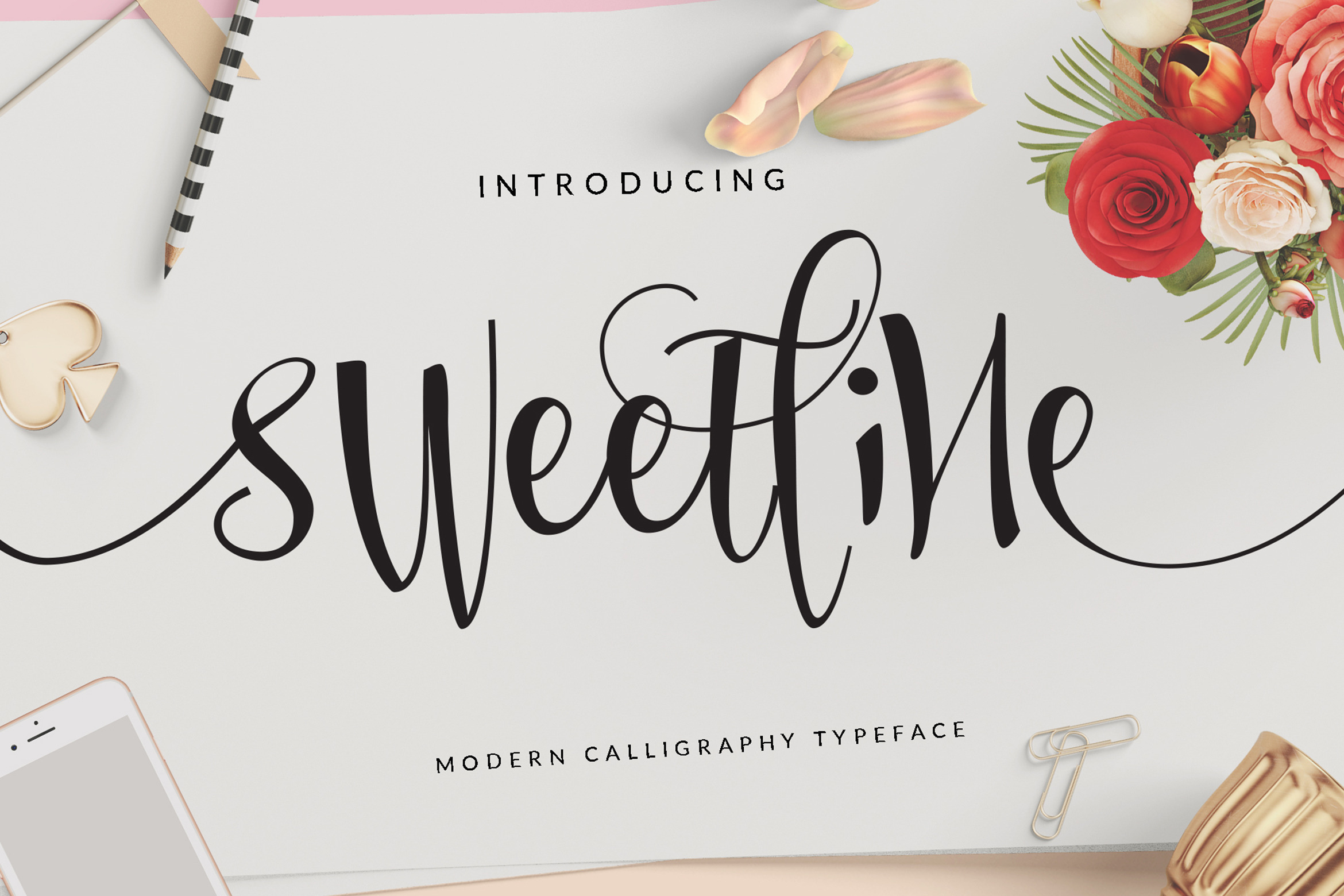
Sweetline Typeface
Sweetline Typeface, is a calligraphy wavy, modern and clasik, perfect for your next design, such as logos, printed quotes, invitations, cards, product packaging, headers and anything else about your imagination.
Sweetline Typeface allows you to create custom dynamic text. you can access by turning on; Stylistic Set, Stylistic alternate, ligature, unique ligature, Initial and terminal as well as in Photoshop, Adobe Illustrator, Adobe InDesign or through a panel of glyphs such as Adobe Illustrator, Photoshop CC, Let's switch from the reguler character into character alternative to get the text with the layout of your dreams. Sweetline Typeface also includes glyphs, punctuation, numbers, and multilingual.
Sweetline Typeface features 438 glyphs and has given PUA unicode (specially coded fonts), with tons of alternate characters. The pack can be accessed in full by any crafter or designer, without the requirement for extra design software, COMPATIBLE WITH SILHOUETTE & CRICUT DESIGN SPACE